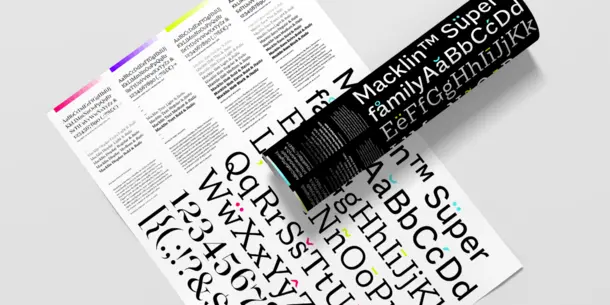
Introducing Macklin: A Typeface Superfamily Built for a New Generation of Design
New from the Monotype Studio, Macklin takes inspiration from a period when type moved beyond books and was used in attention-grabbing street posters and advertisements.
WOBURN, Mass., April 28th, 2020 — Monotype today unveiled the Macklin™ typeface superfamily, designed by Malou Verlomme of the Monotype Studio. Macklin is a typeface that demands attention and enables brands to appeal more emotionally to modern consumers. The superfamily includes four sub families (Sans, Slab, Text and Display), with weights from hairline to black, totaling 54 styles. The complete superfamily can also be accessed as variable fonts. Macklin’s sharp and elegant forms perfectly encapsulate the needs of a full visual identity system, making it ideal for a wide range of brands from editorial publications to luxury, beauty and even packaging design.
Macklin was inspired by the work of 19th century British typographer Vicent Figgins. Figgins was influential at a time when typography was transformed by the appearance of job printing and advertising, which unleashed a new era of stylistic experimentation. Macklin synthesizes Figgins’ body of work into a single, comprehensive type system. Each sub family has been designed with the same underlying skeleton, allowing designers to get creative with contrast and expression without worrying about awkward pairings.
“Macklin is not a historical typeface. In fact, I went through several stages of ‘de-historization’ during the design process,” said Malou Verlomme, senior type designer at Monotype. “While keeping the basic structure intact, all the historical details have been removed, even the iconic teardrop terminals. The result is a contemporary family that offers a large palette for branding and editorial needs.”
Verlomme continued, “When I settled on the current form of Macklin, I focused on the needs of today’s designer: A sans for everyday needs; a sturdy slab that stands out; a text for longer reading; and a display for large, crisp headings.”
“Macklin is lovely. I do like a super family. I know a lot of people scratch their heads when trying to pair fonts, and super families answer that conundrum so I’d imagine designers will respond well to a family that includes such diversity. I also like its humanity and character. It’s got warmth without being quirky. It’ll stand the test of time.” - Richard Weston, senior interpretation designer, Tandem Design
“We’re big Macklin fans! The numerals two and seven are a thing of beauty. However, the main thing we noted was how it’s only when you start to compare individual characters, that you actually appreciate the continuity across all four sub families.” - Ash O’Brien, partner, Two of Us
“Macklin captures that moment between straightforward printing faces and the boom of advertising and the industrial era. But it’s not a revival or a classic. It’s got the Malou twist on what modernity is now.” - James Fooks-Bale, Monotype senior director, brand, Monotype